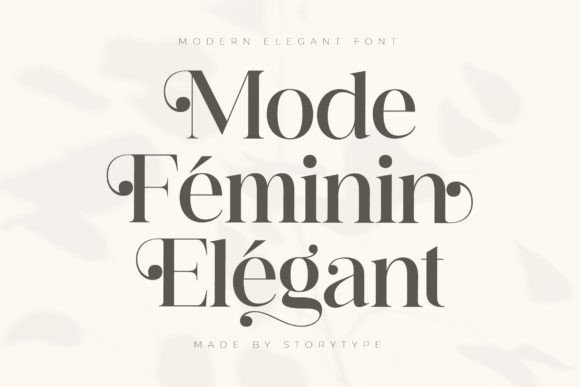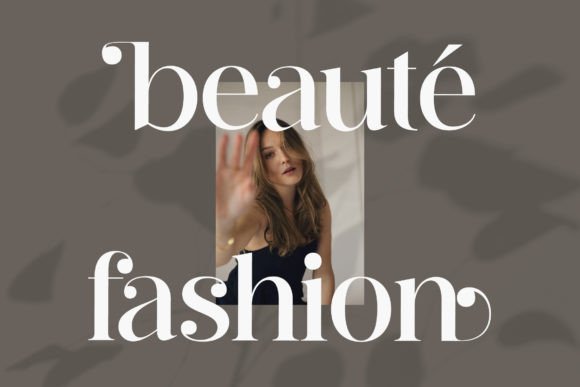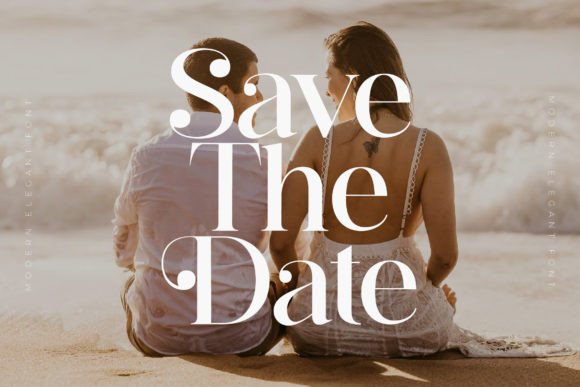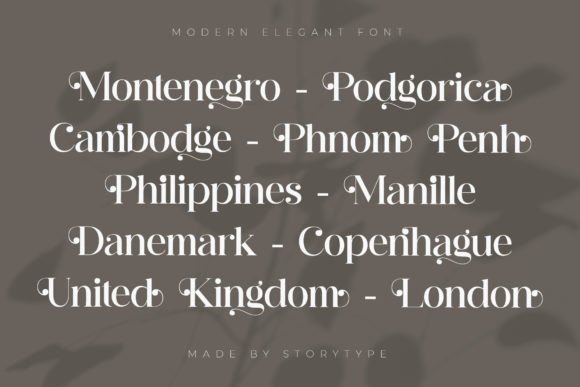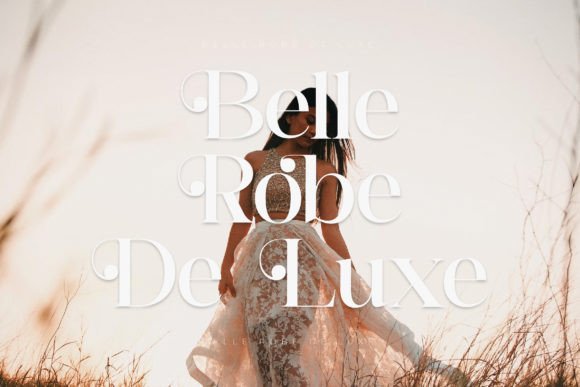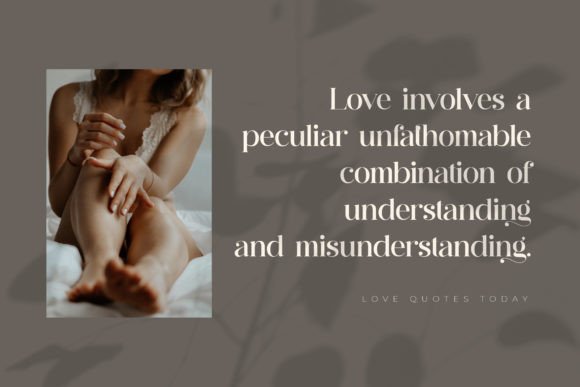
Introduction to Hergika Font
As a designer, there’s nothing quite like the rush of inspiration that comes when you stumble upon the perfect font for your creative project. It’s that moment when all the pieces fall into place, and your vision starts to take shape. For many designers, that moment often involves discovering a high-quality font that elevates their work to the next level.
One such font that has been making waves in the design community is the Hergika Font. This modern and classic serif font boasts a unique style and fancy look that’s perfect for adding an air of elegance and luxury to your designs. Whether you’re working on a logo, book title, or fashion brand, the Hergika Font is an excellent choice for designers looking to create a sophisticated and eye-catching visual identity.
- Unique characteristics: Modern and sleek design aesthetic, perfect for minimalist and contemporary creative projects.
Honest Review: Hergika Font
As a designer, I’m always on the lookout for high-quality design resources that can elevate my creative project. Recently, I stumbled upon the Hergika Font, and I’m excited to share my honest review.
First, let’s talk about what works well with the Hergika Font. ✨ It’s a beautifully designed font that’s perfect for any creative project. The font is clean, modern, and highly legible. It’s also great for use on transparent backgrounds, which is a bonus for designers who need to create visually appealing designs.
Overall, I’m impressed with the Hergika Font, and I think it’s a great addition to any designer’s toolkit. While it may have some limitations, it’s a high-quality design resource that’s perfect for small to medium-sized creative projects.
Hergika Font
Tips for Getting the Most Out of Hergika Font
To get the most out of Hergika Font, consider the following tips:
- Combine Hergika Font with other design elements to create a visually appealing design.
- Use Hergika Font in conjunction with a transparent background to create a clean and modern look.
Common Use Cases for Hergika Font
Hergika Font is commonly used in a variety of design projects, including:
- Business cards and letterheads.